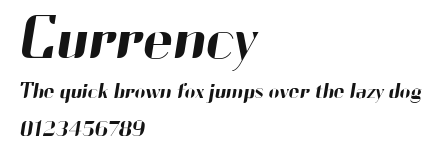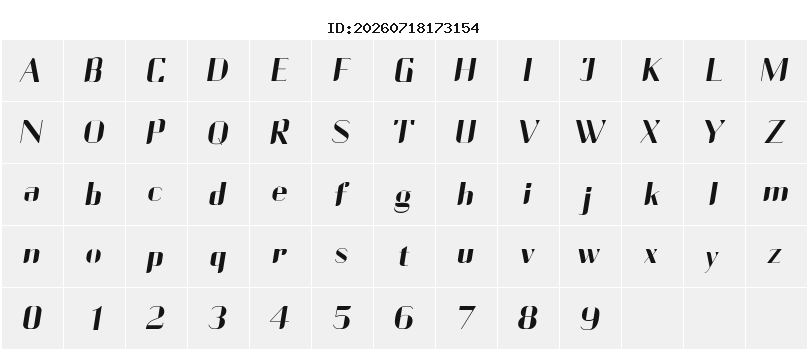
Currency Preview
• Font Name: Currency
• Font Style: Slanted
• Designer: Jacktherabbit
About Currency.ttf
Currency.ttf is a modern, elegant sans-serif font designed for ultimate readability and visual harmony. Perfect for branding, headlines, web design, and print materials.